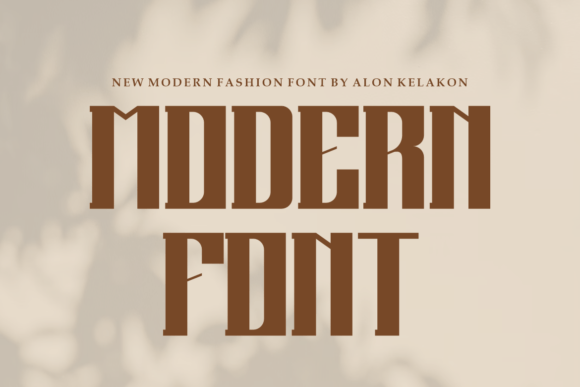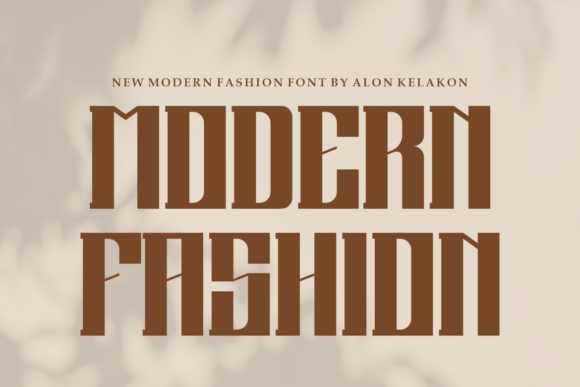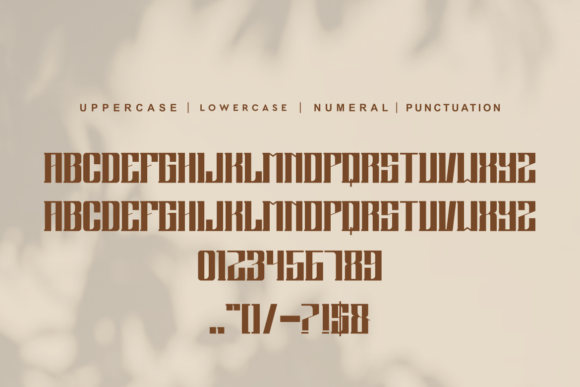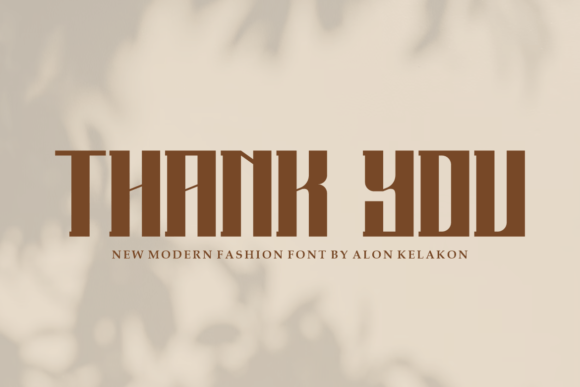
Introduction to Reborne Font
You’ve spent hours pouring over design concepts, perfecting every detail, and finally, you’ve nailed it – the perfect visual representation of your creative vision. But, have you ever felt like something’s missing, like your design needs that extra oomph to truly stand out? This is where the Reborne Font comes in – a modern and stylish display font that’s designed to elevate your creative project to new heights.
As a valuable design resource, the Reborne Font offers high-quality typography that’s perfect for making a statement. With its sleek and sophisticated design, it’s sure to add a touch of professionalism to any project. Whether you’re working on a free download or a paid design, the Reborne Font is the perfect addition to take your design to the next level.
What sets the Reborne Font apart is its transparent background, allowing you to seamlessly integrate it into your design without any distractions. As a designer, you know how crucial it is to have the right tools at your disposal, and the Reborne Font is definitely one of them. So, why settle for anything less when you can have a font that’s truly exceptional?
Key Features of Reborne Font
- Comes with a transparent background, allowing for easy customization and flexibility.
- Unique characteristics include a modern and sleek aesthetic, making it perfect for digital and print media.
- Designed to be versatile and adaptable, suitable for a wide range of creative projects, from logos to typography.
Honest Review: Reborne Font
I recently came across the Reborne Font, and I must say it’s a great addition to any design resource collection. As a designer, I’m always on the lookout for high-quality fonts that can elevate my creative projects. The Reborne Font does just that, with its sleek and modern design.
Here are some of the things that work well with the Reborne Font:
- ✨ Clean and minimalist design that works well for both digital and print projects
- ✨ Wide range of font sizes and styles to suit different design needs
- ✨ Great for creating eye-catching headlines and titles
- ⚠️ Some users may find the font too minimalist, lacking in character
Overall, I’m impressed with the Reborne Font and would definitely recommend it for designers looking for a high-quality font to add to their collection. The transparent background makes it easy to use and customize. While it may have some limitations, it’s a great resource for anyone looking to elevate their creative projects.
Tips for Getting the Most Out of Reborne Font
Experiment with different font sizes and styles to create a unique look. Combine Reborne Font with other design elements, such as images and graphics, to create a visually appealing design. Use Reborne Font to highlight important text or create a focal point in your design.
Reborne Font is perfect for designing logos, business cards, and brochures. It can also be used to create social media graphics, presentations, and documents. With its high-quality design and transparent background, Reborne Font is a versatile design resource for any creative project.